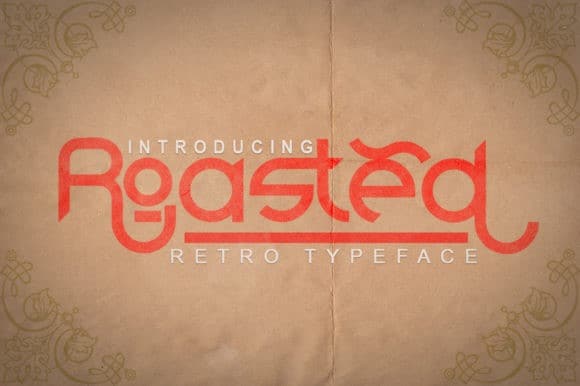
Roasted Display Font
Roasted is a stunning retro display font that’s perfect for adding a spark to any design project. Get inspired by its unique style!